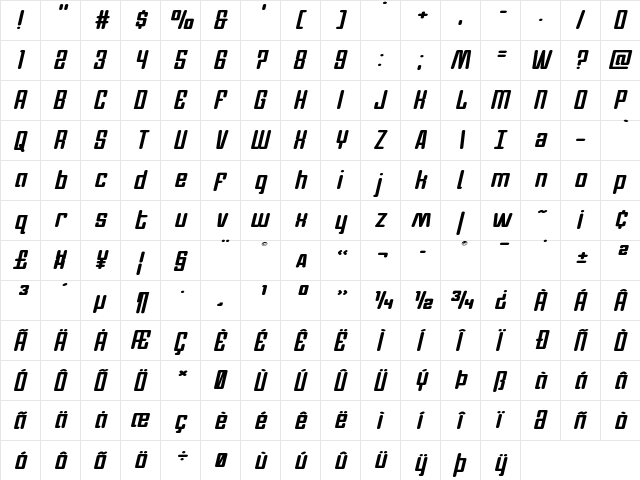
Darklighter Expanded Italic Font Preview
Design Context for Darklighter Expanded Italic Typeface
Darklighter Expanded Italic is a composed and adaptable typeface that performs quietly and consistently across a wide range of design contexts. The dynamic lean of this cut emphasises speed and emphasis in any layout. Its slender proportions lend an understated elegance to any composition.